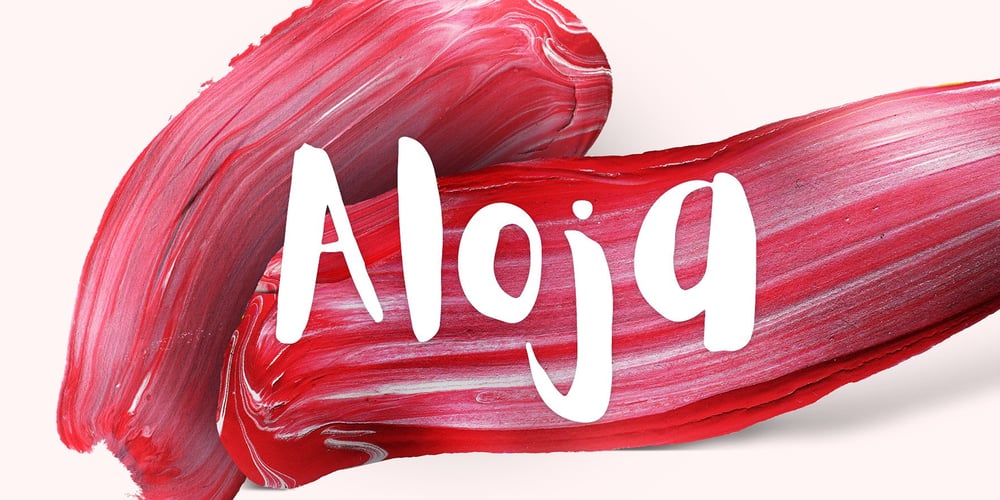
Aloja Extended Font Family was designed by Krisjanis Mezulis and published by WildOnes. Aloja Extended contains 1 styles and family package options. Aloja handwriting font was drawn by Ieva and Krisjanis and put together by Krisjanis Mezulis. Aloja font can be used for – Big titles, events, posters and invitations. It is easy to read and features a fresh and easy feel. Every single letter is hand drawn with a thin brush on acrylic paper, this making the typeface visually unique. The playful letter bounces make it stand out from the crowd.